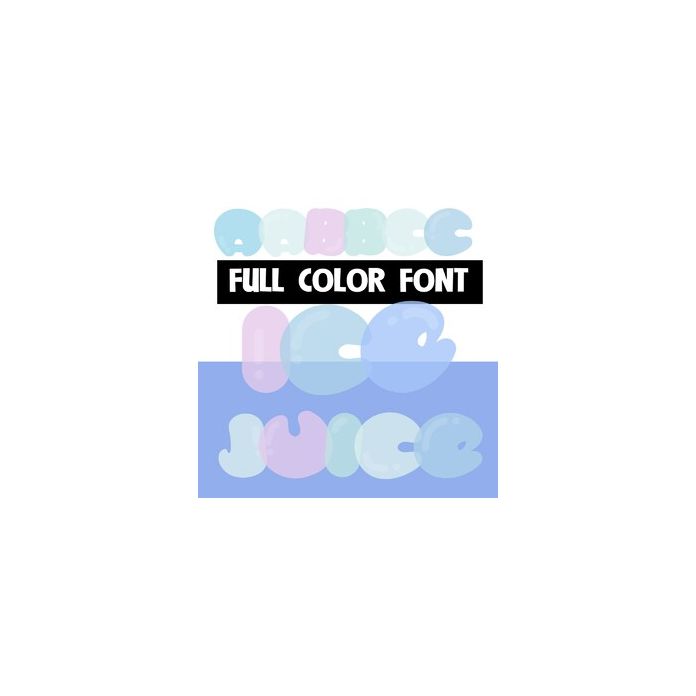
This full-color font features bubbly, thick lettering in a winter color palette that are slightly transparent and look awesome overlapping each other.